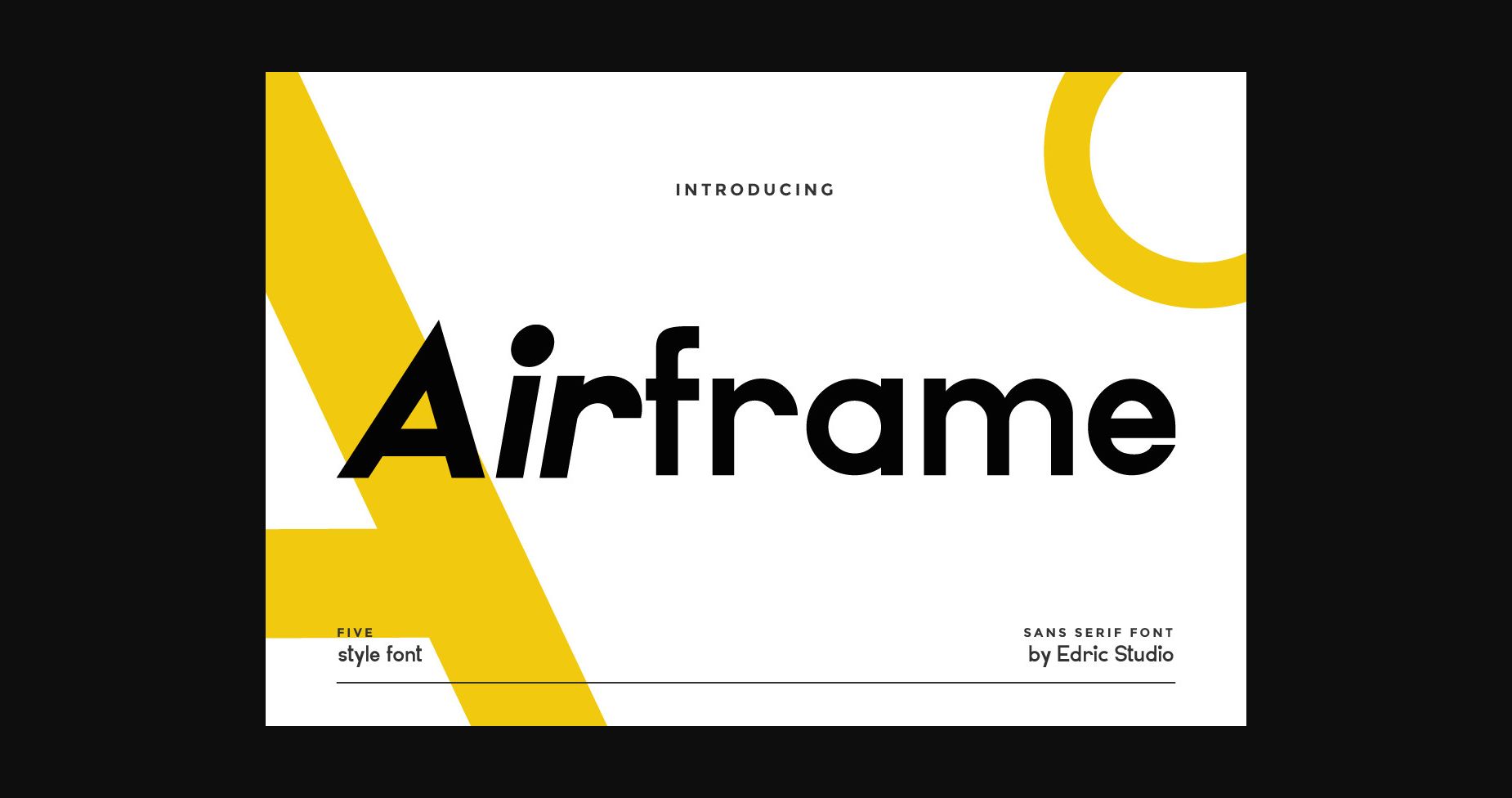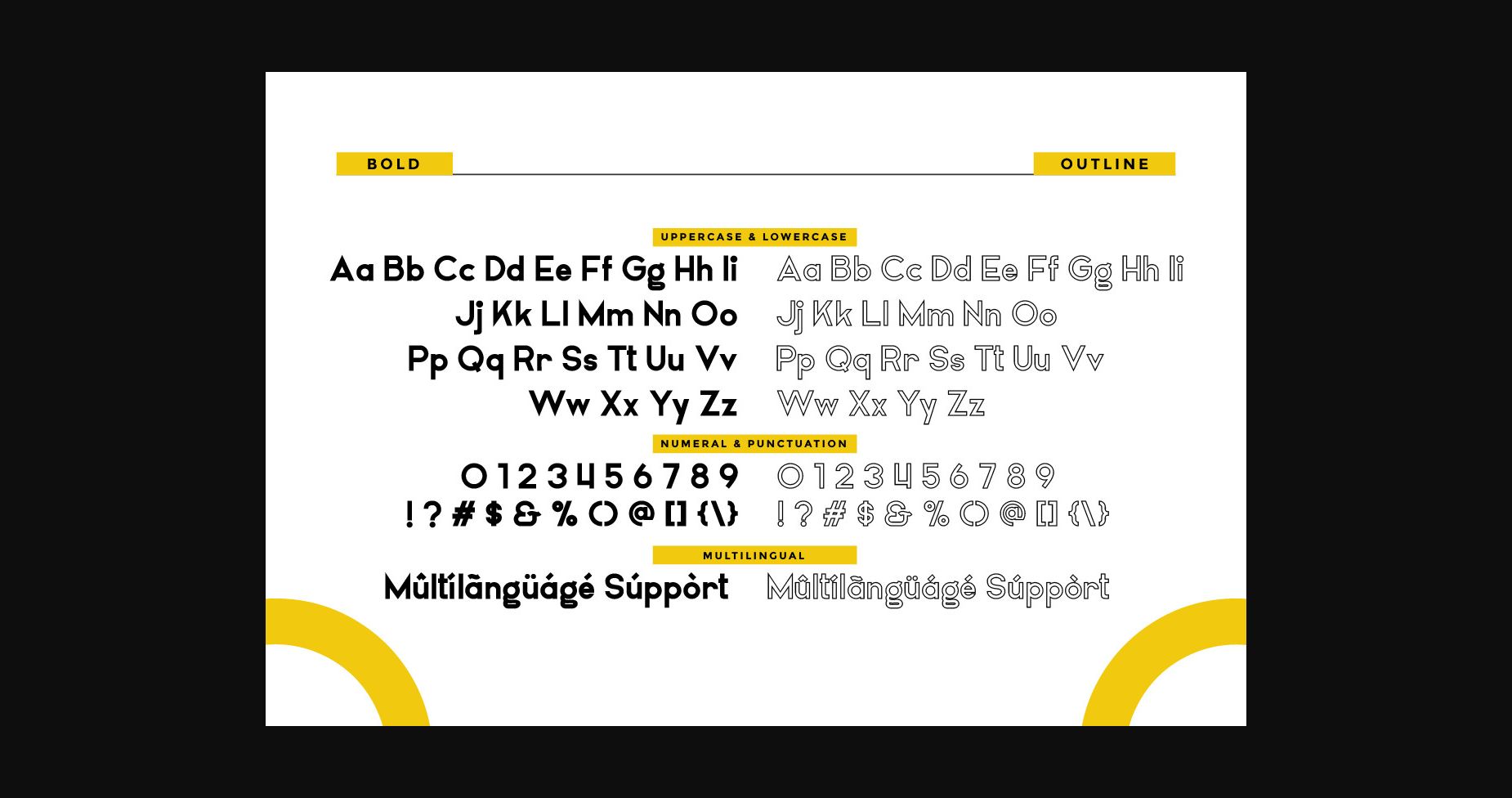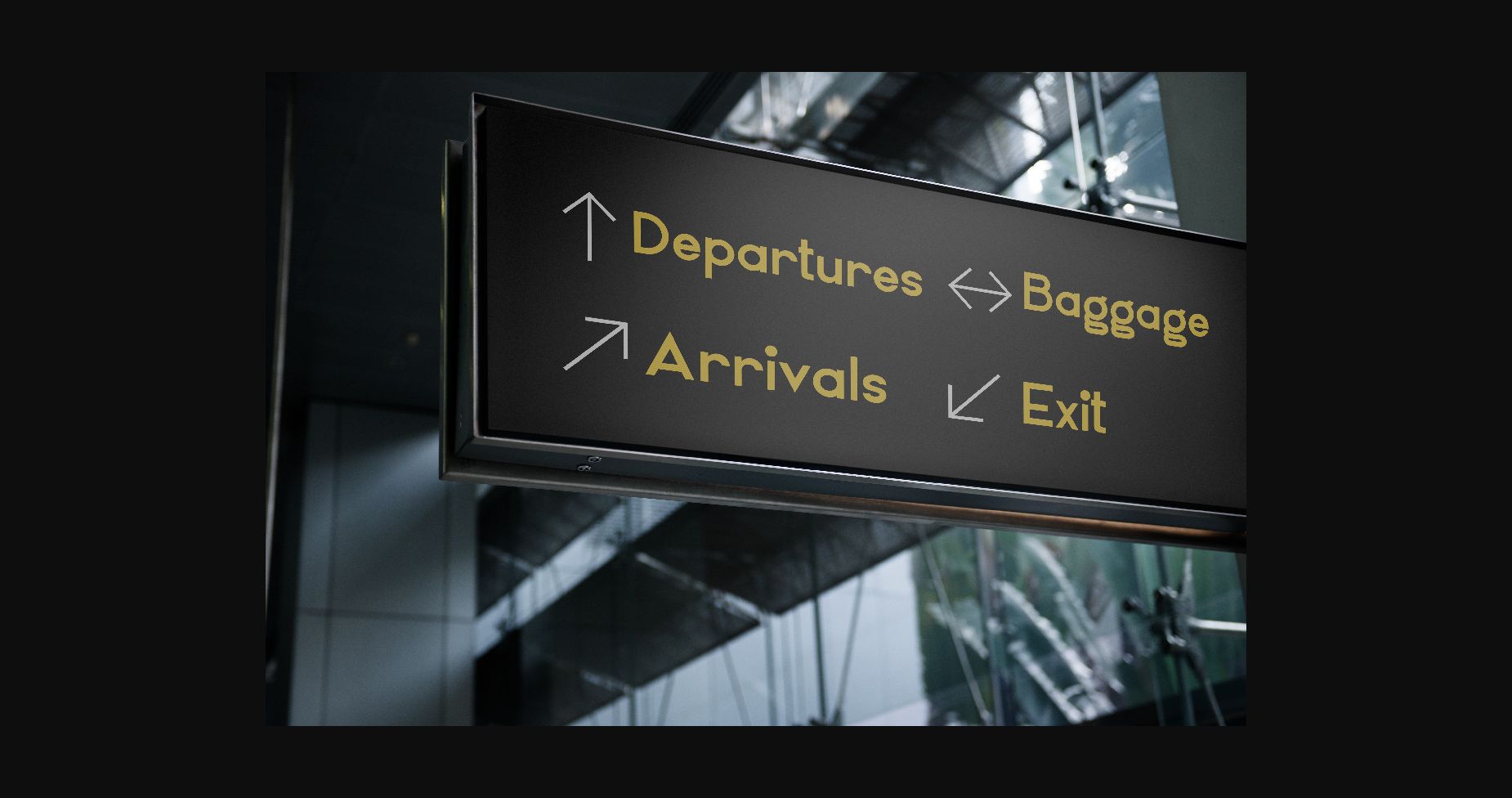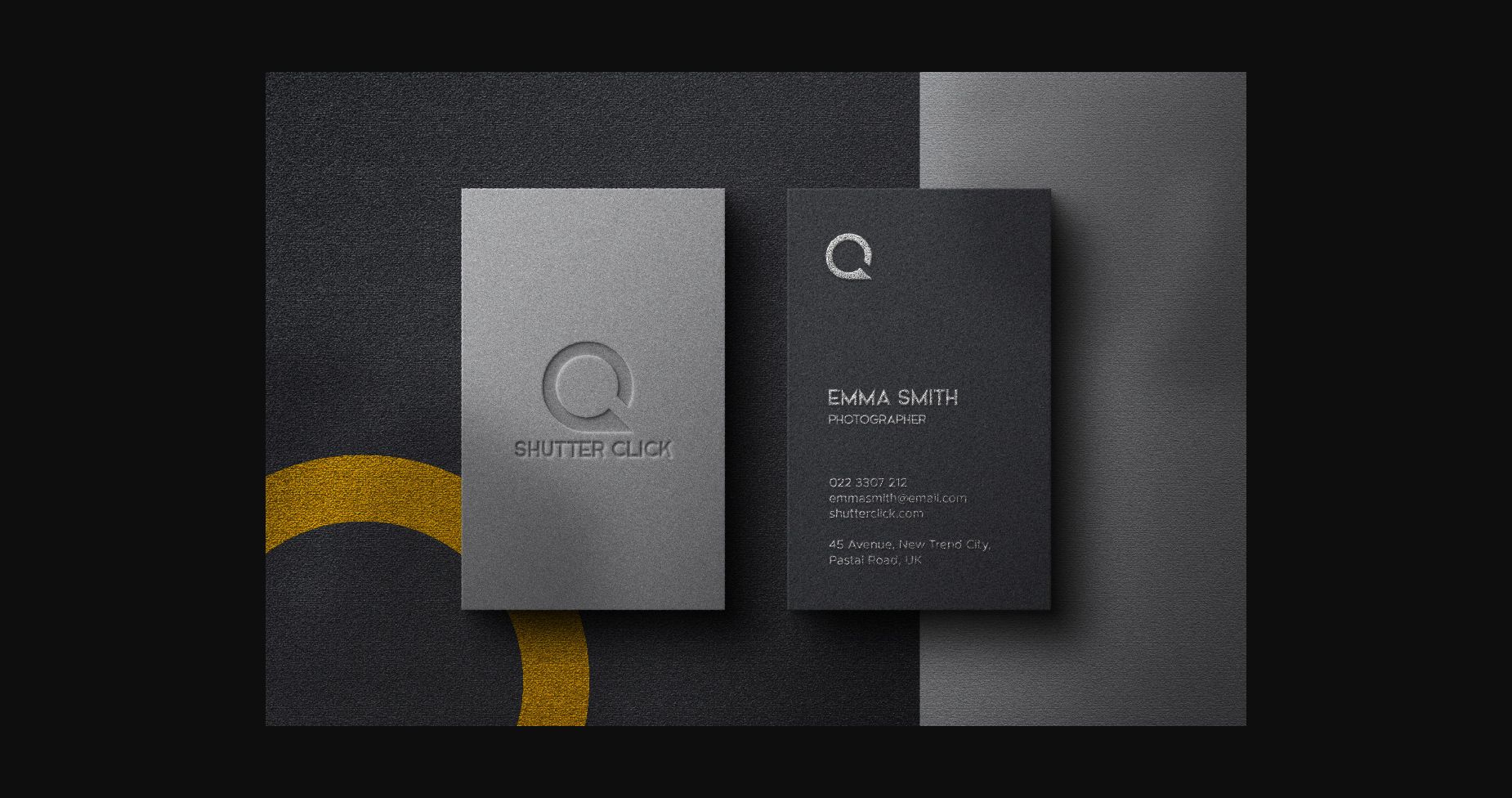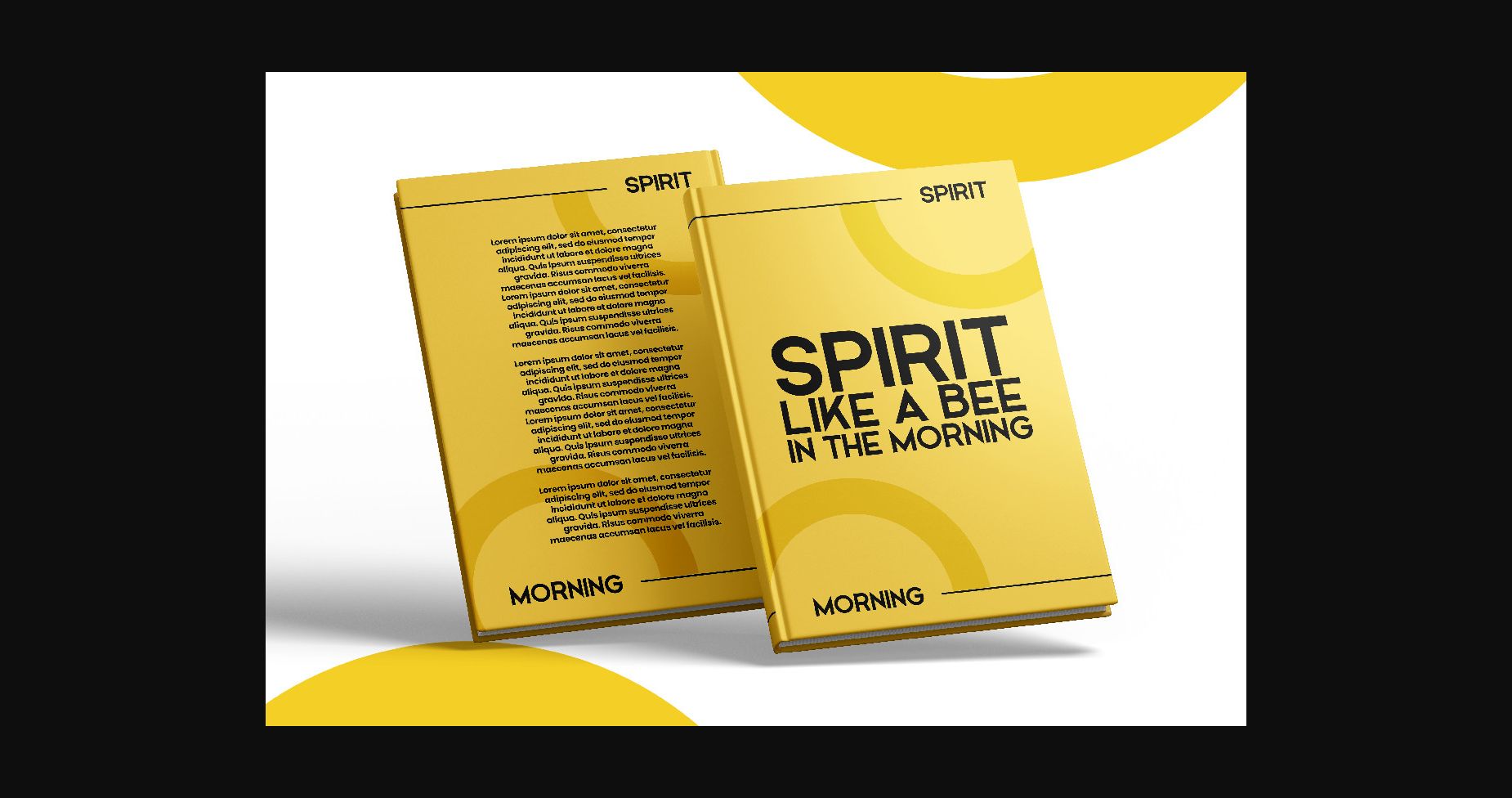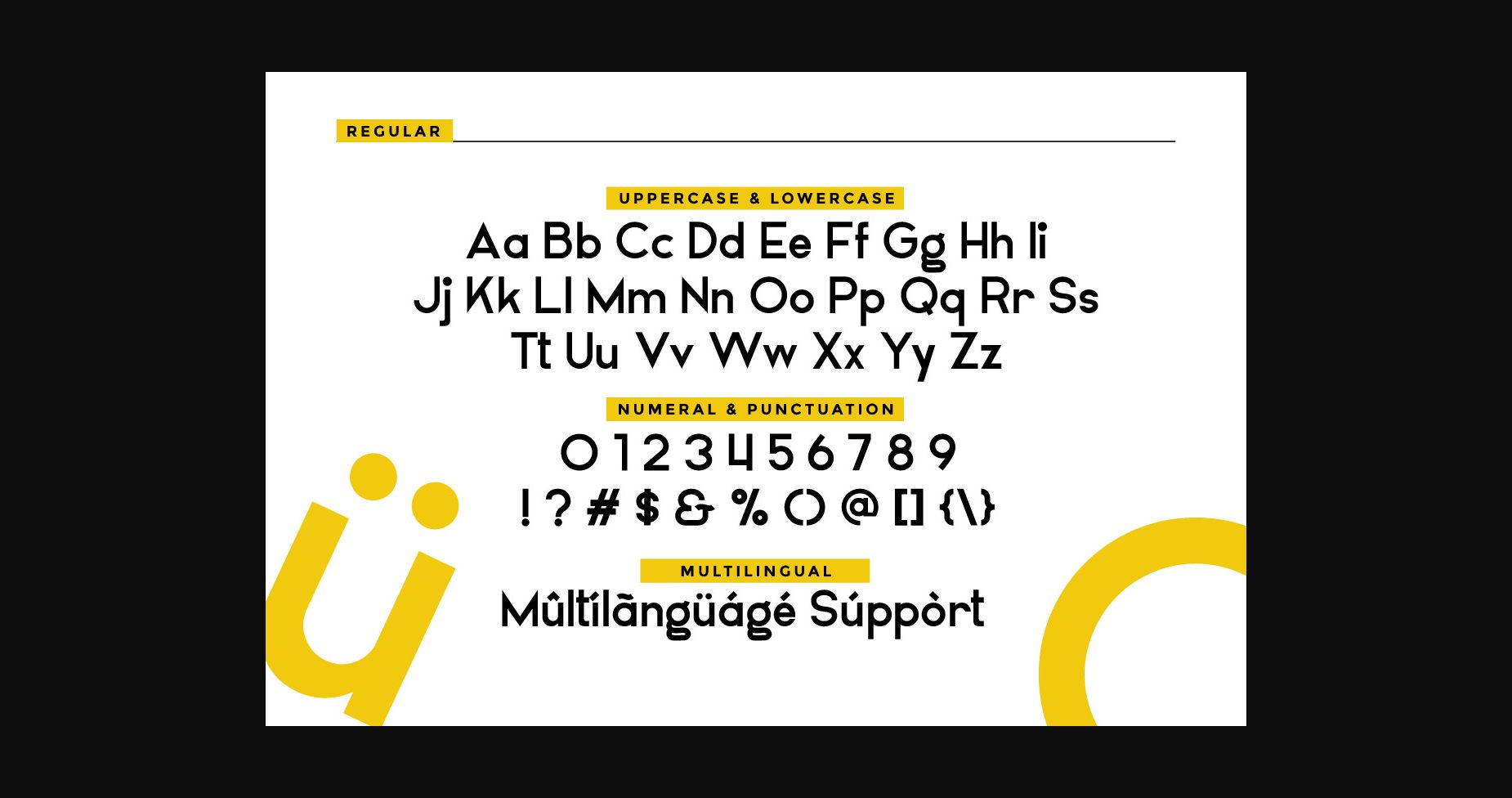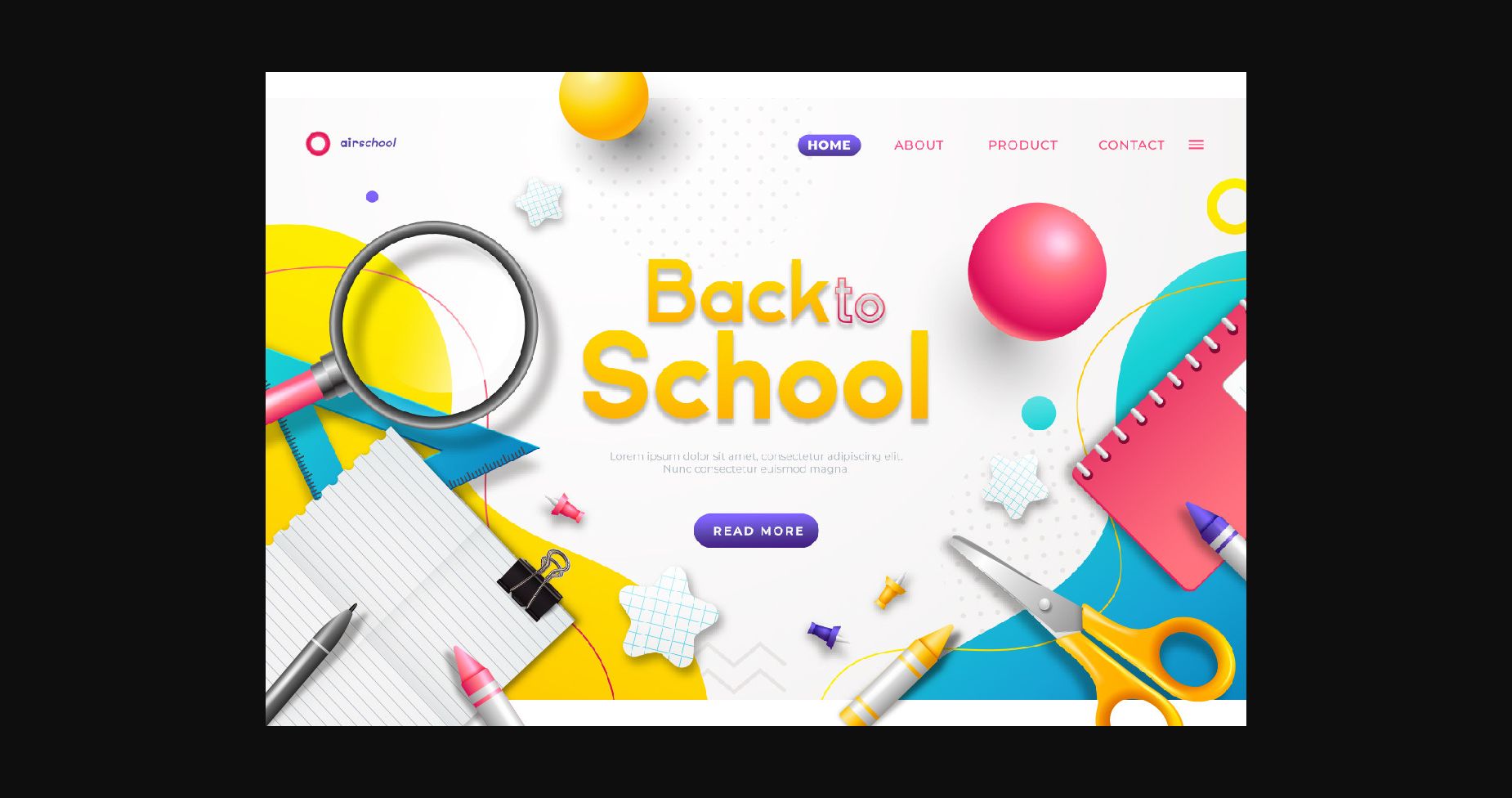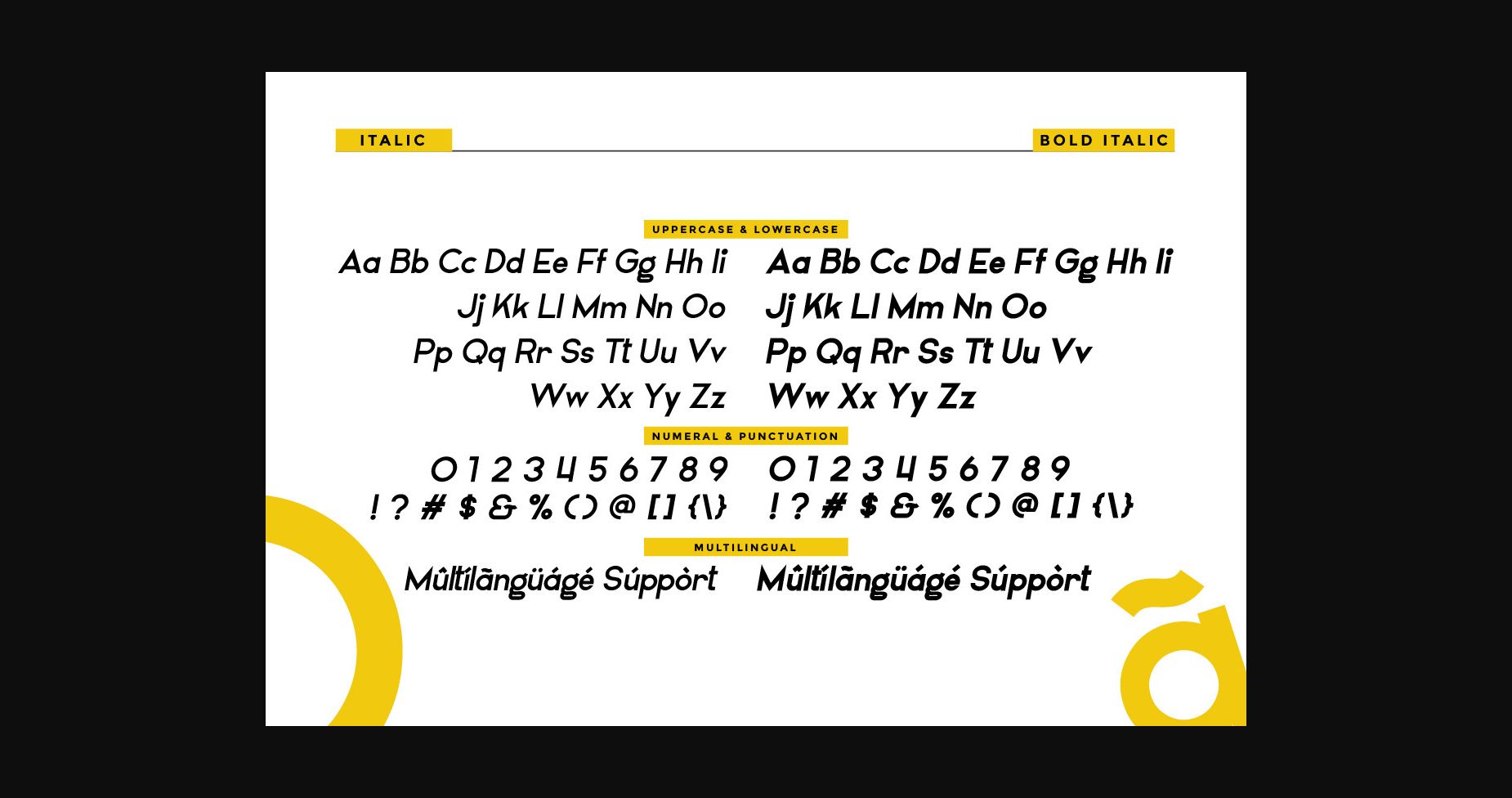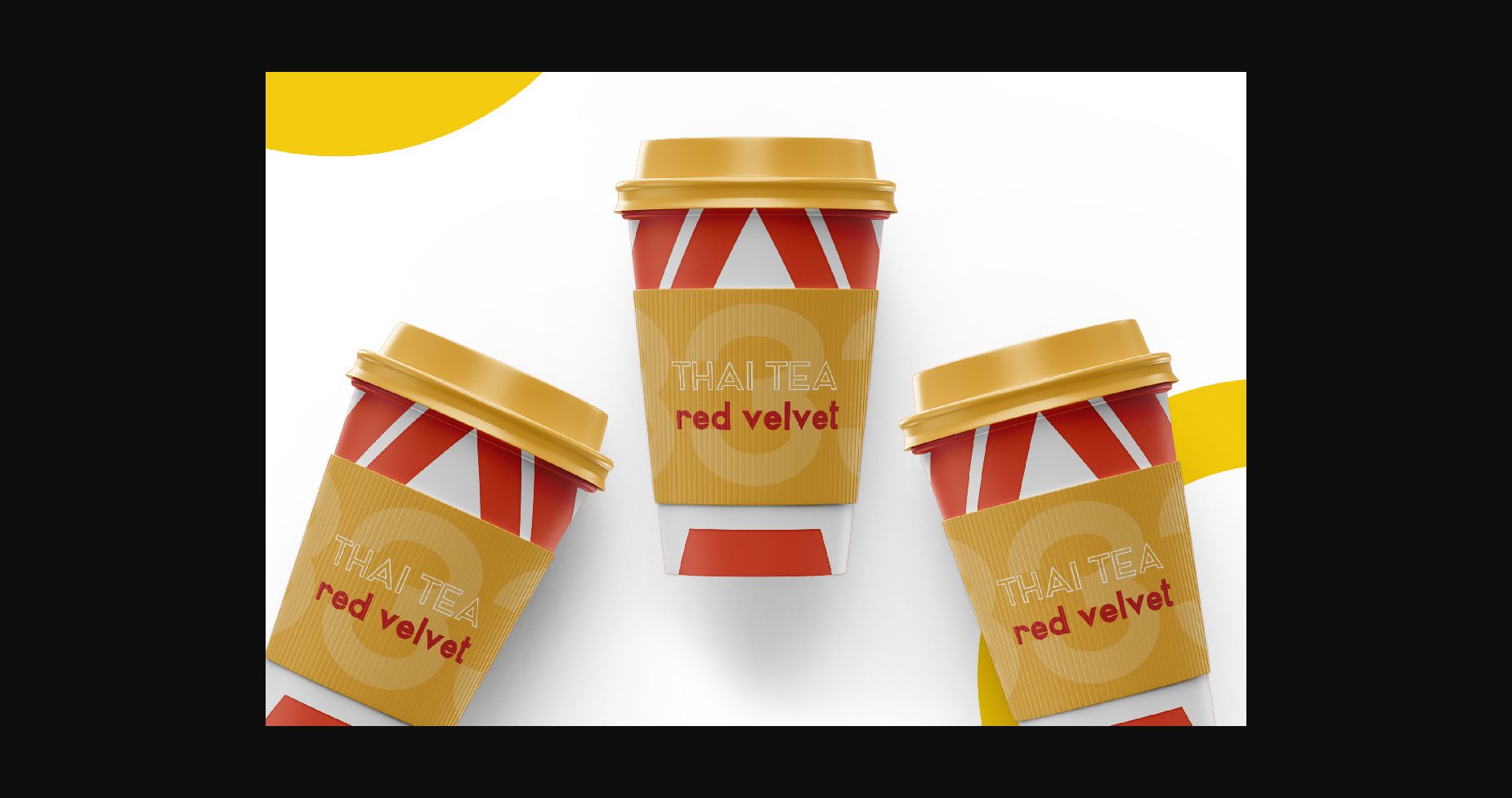
HomeSans Serif FontsAirframe Font Sans Serif Fonts Airframe Font FacebookXPinterestWhatsApp 1 of 11 ... Airframe Font Poster 2... Airframe Font Poster 3... Airframe Font Poster 4... Airframe Font Poster 5... Airframe Font Poster 6... Airframe Font Poster 7... Airframe Font Poster 8... Airframe Font Poster 9... Airframe Font Poster 10... Airframe Font Poster 11... About Airframe Font Airframe is a minimal and neat sans serif font. It can easily be matched to an incredibly large set of projects, so add it to your creative ideas and notice how it makes them stand out! DOWNLOAD NOW People also explored Romantyk Font Signlia Font Hoodger Font Halloween Font All I Ever Need Font Gorilla Font Xmas Cookie Font Merging S Font Monogram Ethnic Gnome Font 431 0 TagsAirframe Font Previous articleHonest Maria FontNext articleNeon Magic Font LEAVE A REPLY Cancel reply Comment: Please enter your comment! Name:* Please enter your name here Email:* You have entered an incorrect email address! Please enter your email address here Website: Save my name, email, and website in this browser for the next time I comment. Personal Use Free Mounets Personal Use Free Read more about this font Lovely Girl Personal Use Free Read more about this font Anders Personal Use Free Read more about this font Hysteria Santa Personal Use Free Read more about this font BLOG Free vs Paid Fonts: Why Investing in Premium Fonts Is Worth It Free vs Paid Fonts: Why Premium Fonts Are Worth It in 2025 The debate of free vs paid fonts continues in the design world. While... Top 7 Google Fonts Alternatives for Faster and Privacy-Friendly Web Design (2025) Elegant Wedding Invitation Fonts – Handwritten & Script Fonts Exploring Font Trends